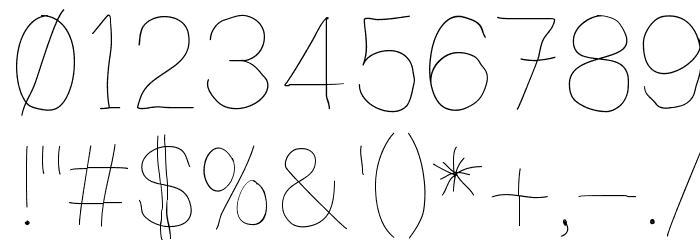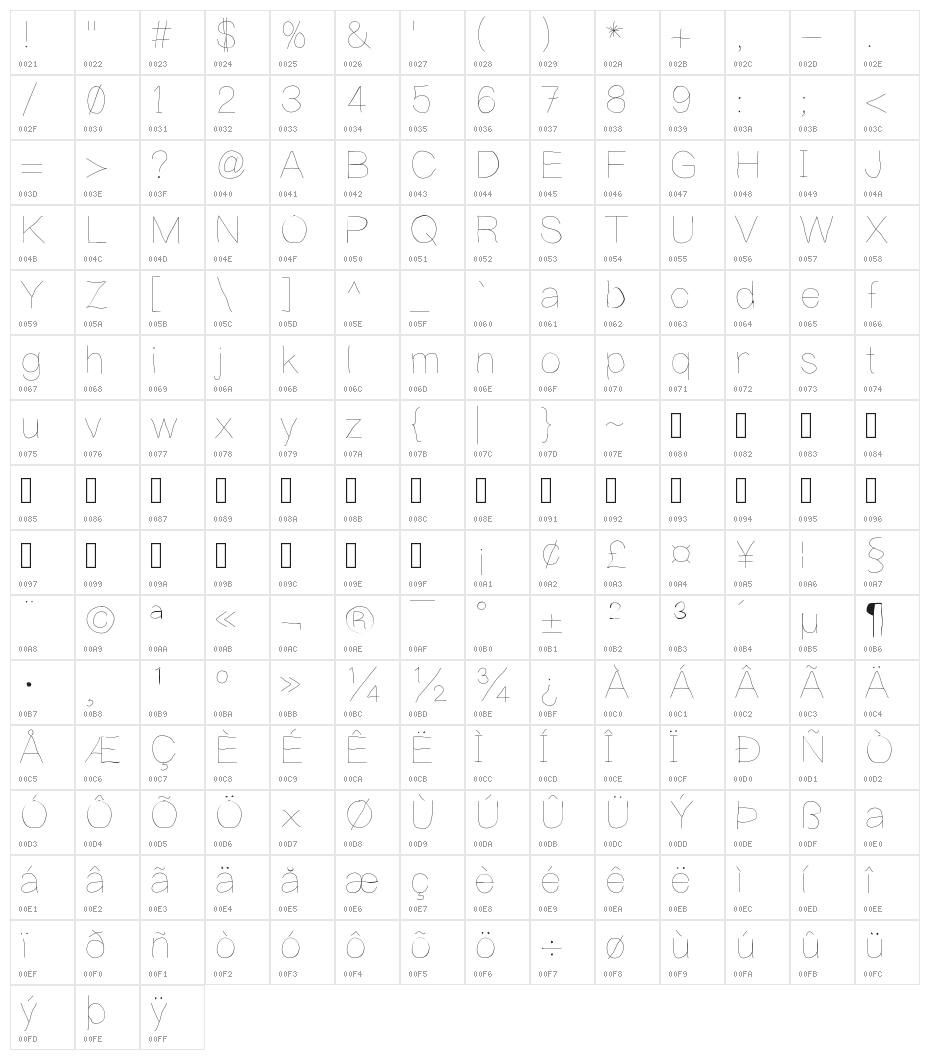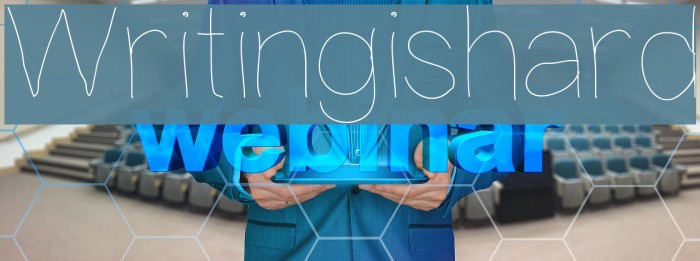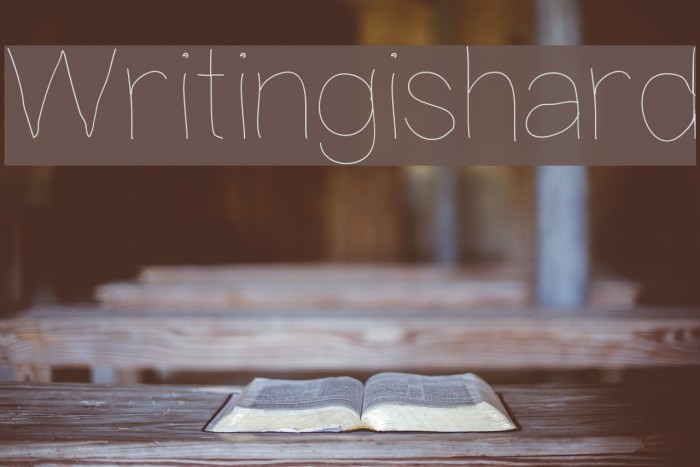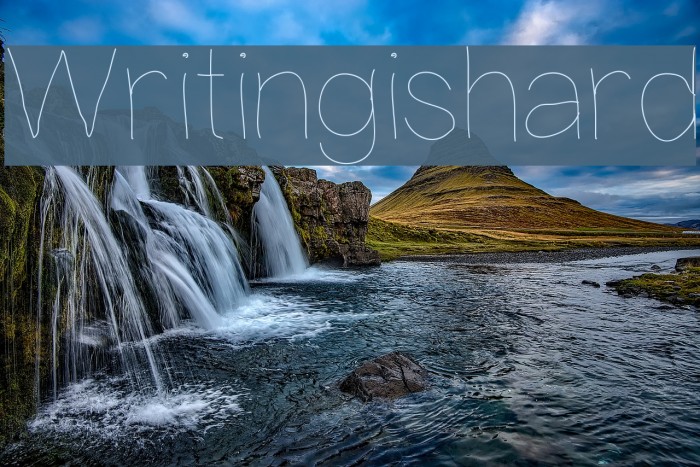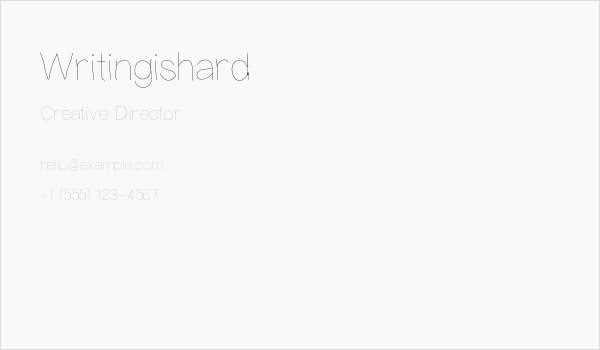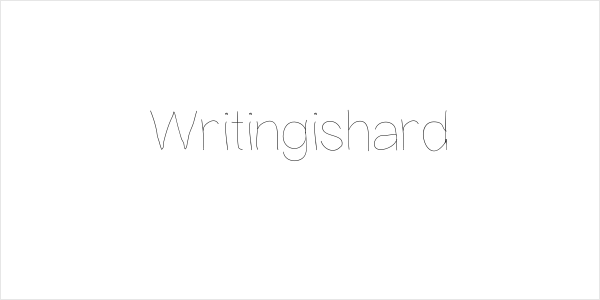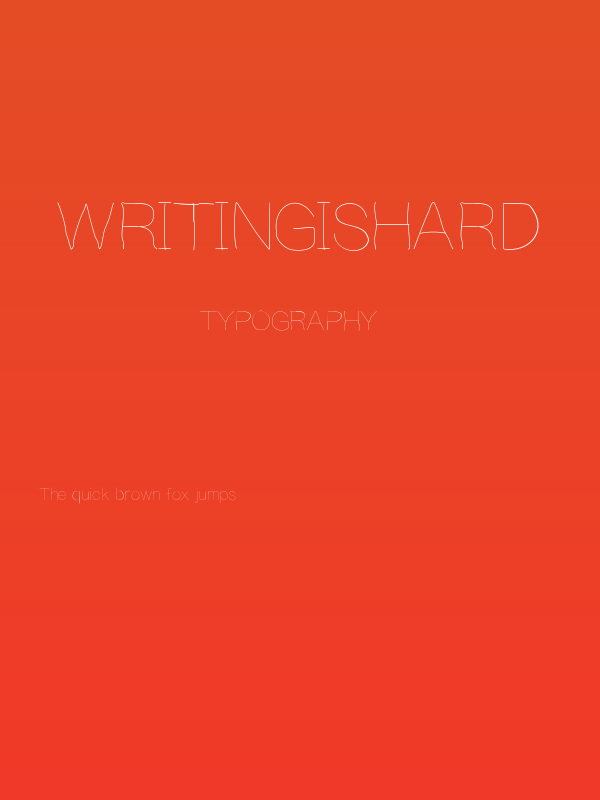
Writingishard Font
Writingishard Description
This font features a playful and whimsical style, characterized by its thin, uneven strokes that mimic a hand-drawn appearance. The letters have a casual, informal feel, with a slightly irregular baseline that adds to its charm. The uppercase and lowercase letters maintain a consistent style, with rounded edges and a light, airy presence. Numbers and special characters follow the same design principles, ensuring a cohesive look across all glyphs. The font's unique personality makes it suitable for creative and artistic projects where a relaxed and approachable tone is desired.
| Use Case | Headlines, Logos, Artistic projects |
| Proposed Projects | Ideal for children's books, greeting cards, casual invitations, and artistic posters. |